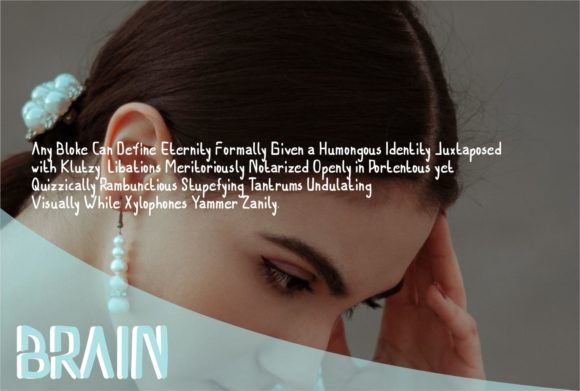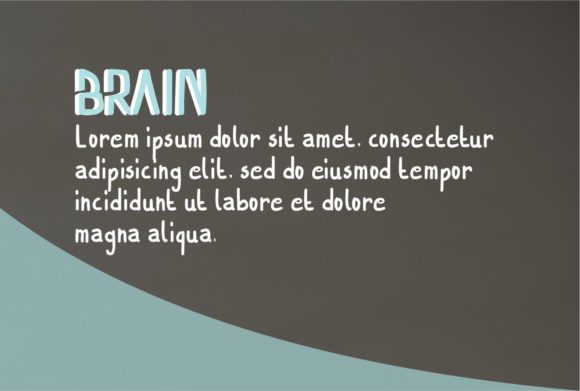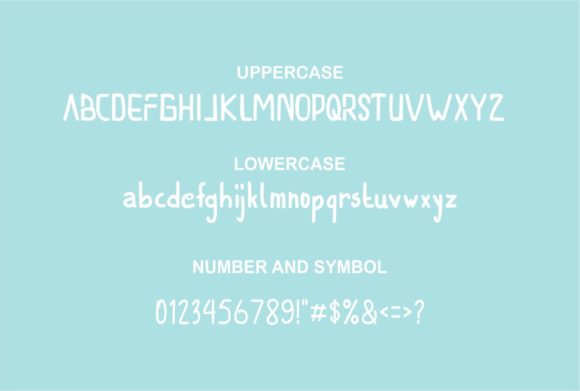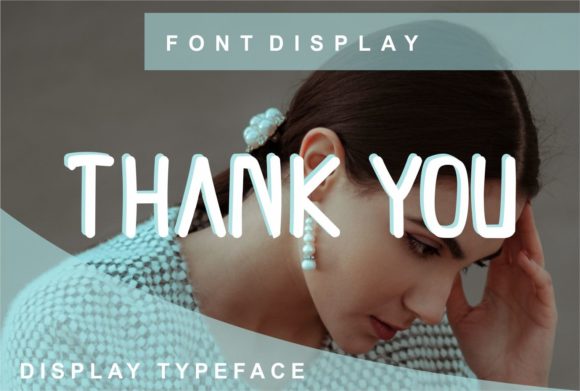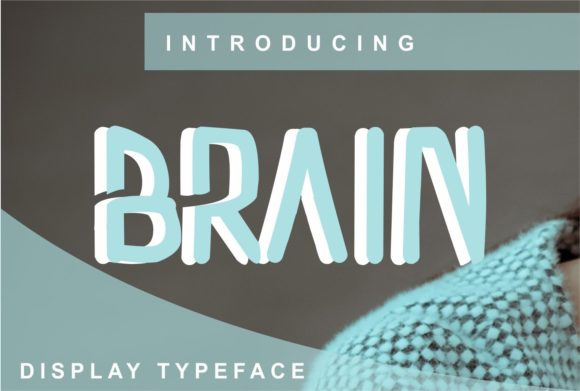
Brain Font: Elevate Your Designs with this Adaptable and Trendy Display Font
In the world of typography, a good font can make all the difference in the success of a design project. As a designer or crafter, you’re constantly on the lookout for fonts that can help you create stunning visual content that captures the attention of your audience. If you’re looking for a font that can elevate your designs and make them stand out, look no further than Brain Font. In this article, we’ll take a closer look at Brain Font, its features, and how it can be an incredible asset to your font library.
What is Brain Font?
Brain Font is a modern and trendy display font designed to be adaptable to a wide range of topics and design projects. Its unique and stylish lettering makes it perfect for creating eye-catching headlines, titles, and other display text. Whether you’re working on a branding project, a website design, or a marketing campaign, Brain Font is a versatile font that can help you achieve your design goals.
Key Features of Brain Font
Brain Font comes with a range of features that make it an excellent addition to your font library. Some of its key features include:
- Adaptable: Brain Font is designed to be adaptable to different topics and design projects. Its neutral and clean design makes it easy to pair with other fonts and design elements.
- Trendy: Brain Font has a modern and trendy look that’s perfect for creating visually appealing designs. Its stylish lettering and sleek lines make it ideal for headlines, titles, and other display text.
- Display Font: Brain Font is a display font designed specifically for large text sizes. Its bold and eye-catching design makes it perfect for creating stunning headlines and titles.
- Easy to Read: Despite its bold design, Brain Font is easy to read, even at smaller sizes. This makes it a great choice for body text and other smaller design elements.
Benefits of Using Brain Font
- Stand Out: Brain Font is designed to make your designs stand out. Its unique and stylish lettering makes it perfect for creating eye-catching headlines and titles that grab the attention of your audience.
How to Use Brain Font in Your Designs
- Headlines and Titles: Use Brain Font to create stunning headlines and titles that grab the attention of your audience.
- Branding Projects: Brain Font is perfect for branding projects, such as logos, business cards, and letterheads.
- Website Design: Use Brain Font to create eye-catching headings and titles for your website design.
- Marketing Campaigns: Brain Font is ideal for marketing campaigns, such as flyers, brochures, and social media graphics.
| Font Name | Brain Font |
| Author | Letteria_studio |